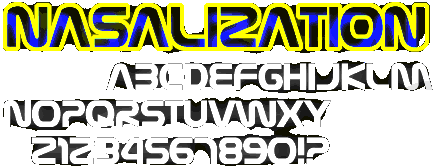
This just in! Now Nasalization has European characters and looks a little neater.
It all started with an N, S and A. I cloned the letters around a bit and here's what you get. This is the font I used for the text balloon for the DJ on my front page.